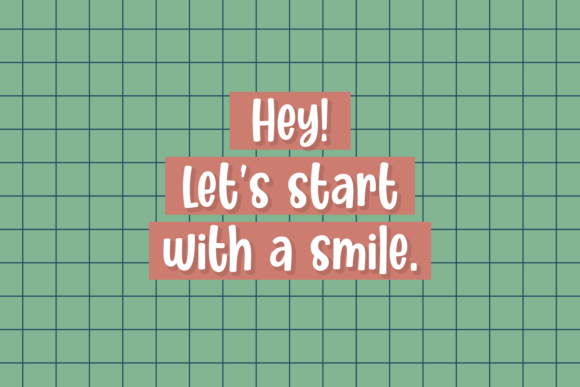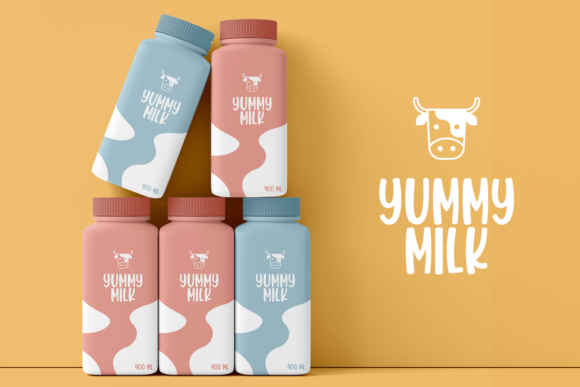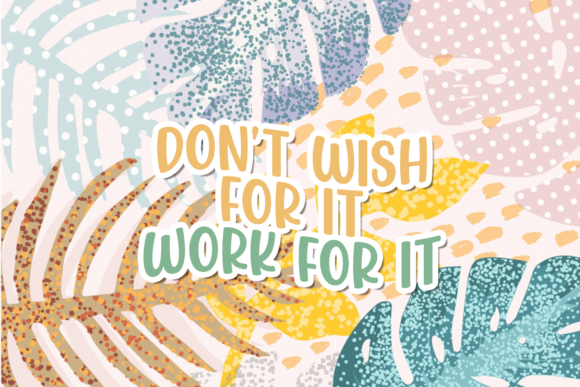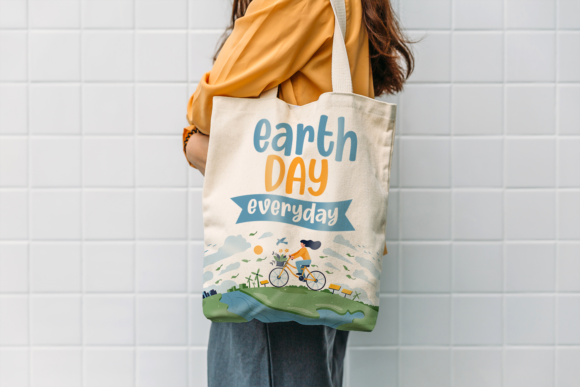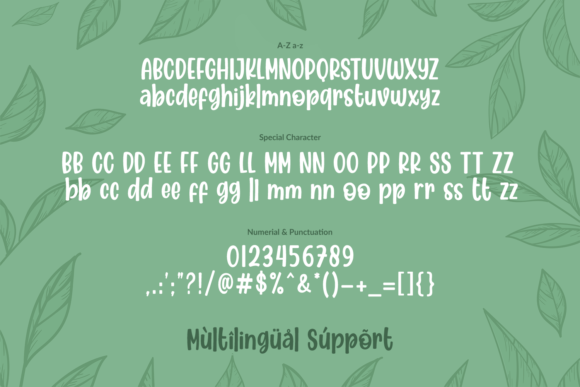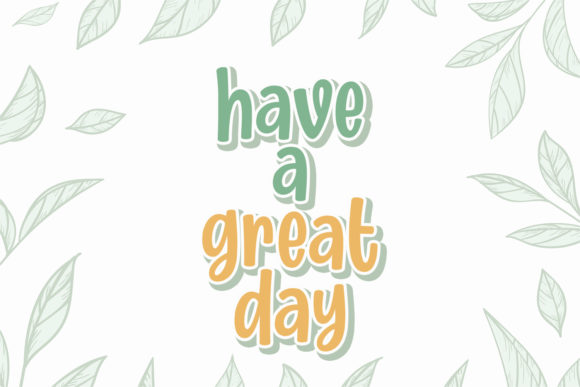
Discover the Sweet Charm of Cafe Matcha Font
You know that moment when you’re brainstorming ideas for a new design project, and suddenly, a spark of inspiration strikes? It’s like stumbling upon a hidden treasure trove of creativity. For many designers, it’s the perfect blend of style and personality that sets their work apart. And that’s exactly what Cafe Matcha Font aims to deliver – a sweet and cute display font that’s as inviting as a warm cup of coffee on a chilly morning.
Cafe Matcha Font is designed to bring a touch of friendliness to your informal designs, making it a perfect choice for bloggers, social media influencers, and content creators. Its strong yet approachable shape ensures that it complements a wide range of designs, from playful advertisements to cozy brand identities. Whether you’re looking to add a dash of whimsy or a pinch of sophistication, Cafe Matcha Font is a valuable addition to any designer’s toolkit.
Cafe Matcha Font Key Features
- Unique Characteristics: Cafe Matcha Font features a unique, hand-drawn design with subtle imperfections, giving it a natural and organic feel.
Cafe Matcha Font Review
I’ve had the chance to work with the Cafe Matcha Font, and I must say, it’s a unique and charming addition to any design project. Here are my thoughts on what works well and what doesn’t.
The font’s playful and whimsical nature makes it perfect for creating a relaxed, cafe-like atmosphere.
The bold and italic styles are well-designed and add to the font’s overall charm.
The font’s legibility is great, making it easy to read even at smaller sizes.
The font’s character set is limited, which may not be suitable for projects that require a wide range of languages.
The font may not be suitable for titles or headings that require a more formal tone.
Overall, I think Cafe Matcha Font is a great choice for projects that require a fun and casual vibe. It’s perfect for blog posts, social media graphics, or any design project that needs a touch of whimsy. However, it may not be the best choice for more formal or professional projects.
Cafe Matcha Font is perfect for creating a modern and elegant design aesthetic. Some common use cases include:
– Creating invitations and event graphics
– Designing food and beverage packaging
– Creating digital graphics for social media and websites
– Using it in combination with other modern fonts for a cohesive look
– Experimenting with different font sizes and colors to create visual interest
– Using it to create a consistent brand identity